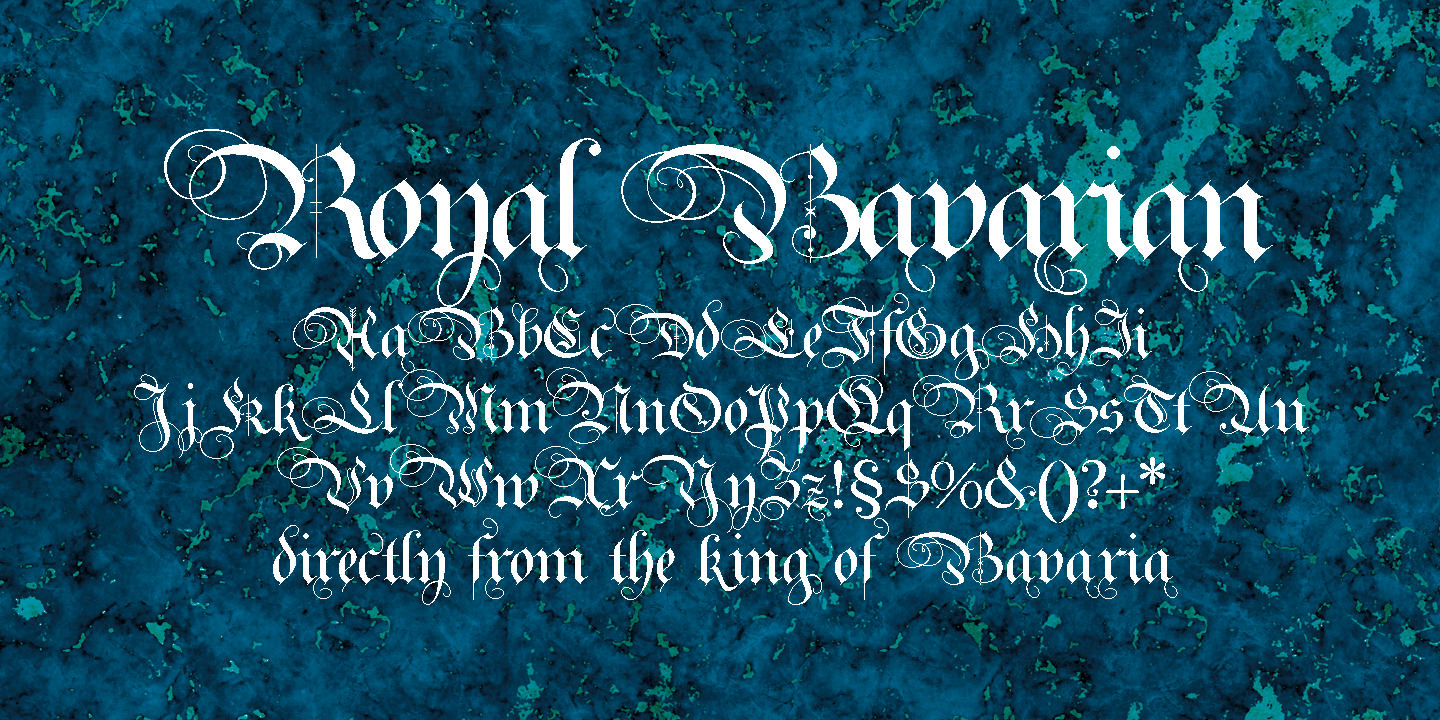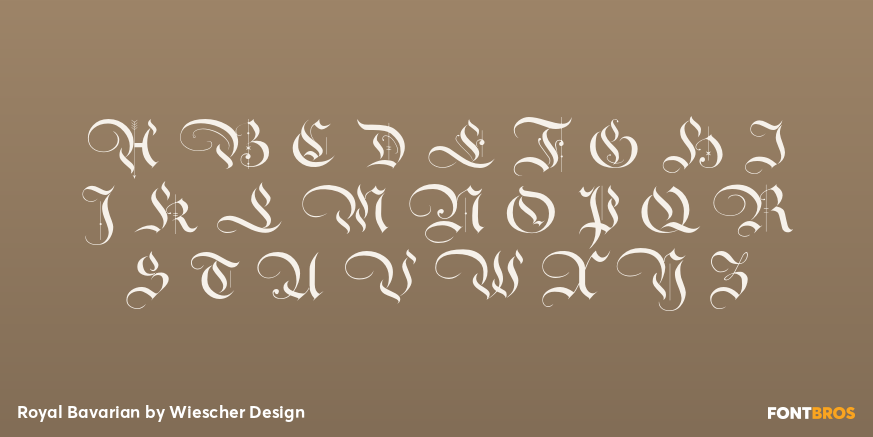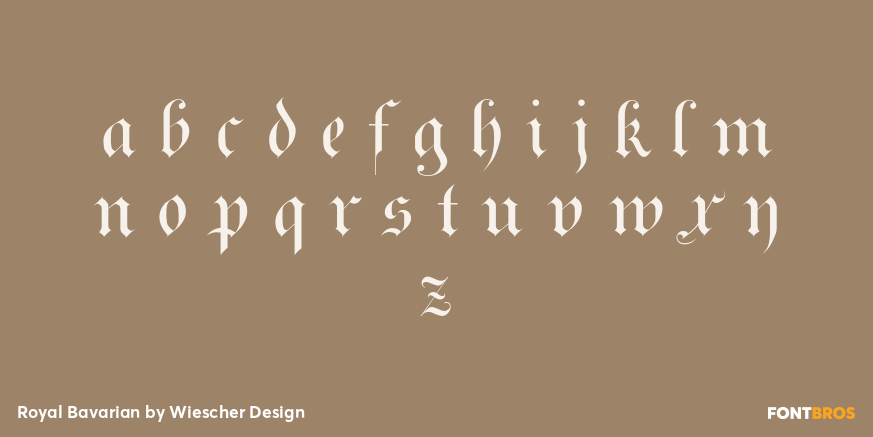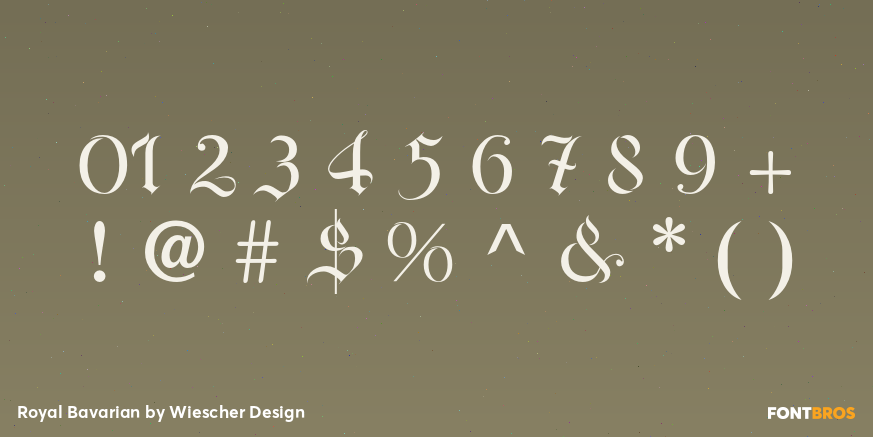
Royal Bavarian
Buy NowRoyalBavarian was comissioned by King Ludwig 1st of Bavaria about 1834. He was probably the greatest king Bavaria ever had, but he fell in disgrace for a short affair with the famous infamous Lola Montez and subsequently had to resign. He died 1868 peaceful and happy in Nice on the French Riviera.
I happened on an original etching of his type-guidelines for official writers of those days about 20 years ago. I always thought it was a very nice Fraktur (Blackletter), not a sturdy militaristic one as most of them are. Being me, I started with first tests immediately and then just forgot the font on my computer. When I was sorting out old stuff a couple of months ago I happened on the etchings once again and kept on working on and off on the letters. More?